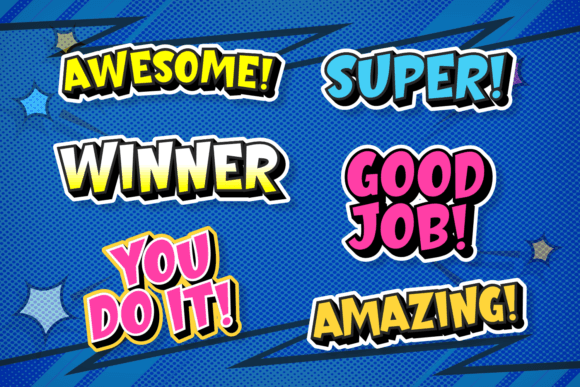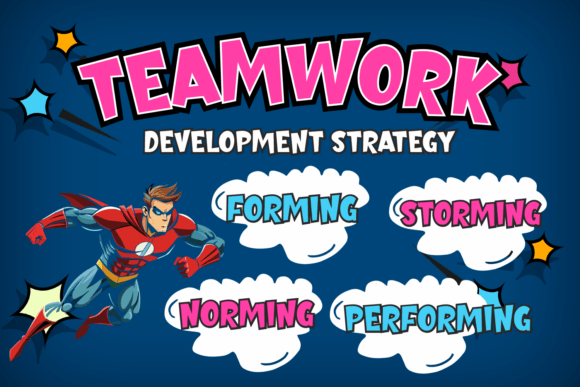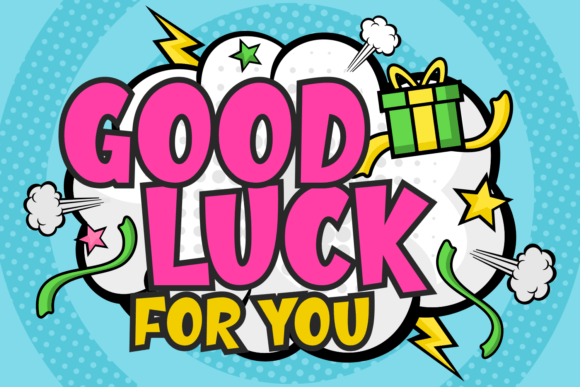
Introduction to Nice Move Font
Nice Move is a display comic font.
Whether used in logos, headlines, or digital artwork, it adds a sense of fun without being overwhelming .
Key Features of Nice Move Font
Why Choose Nice Move Font?
Nice Move Font offers exceptional quality and versatility, making it a valuable addition to your design toolkit. Whether you’re creating for personal projects or commercial use, Nice Move Font delivers professional results.